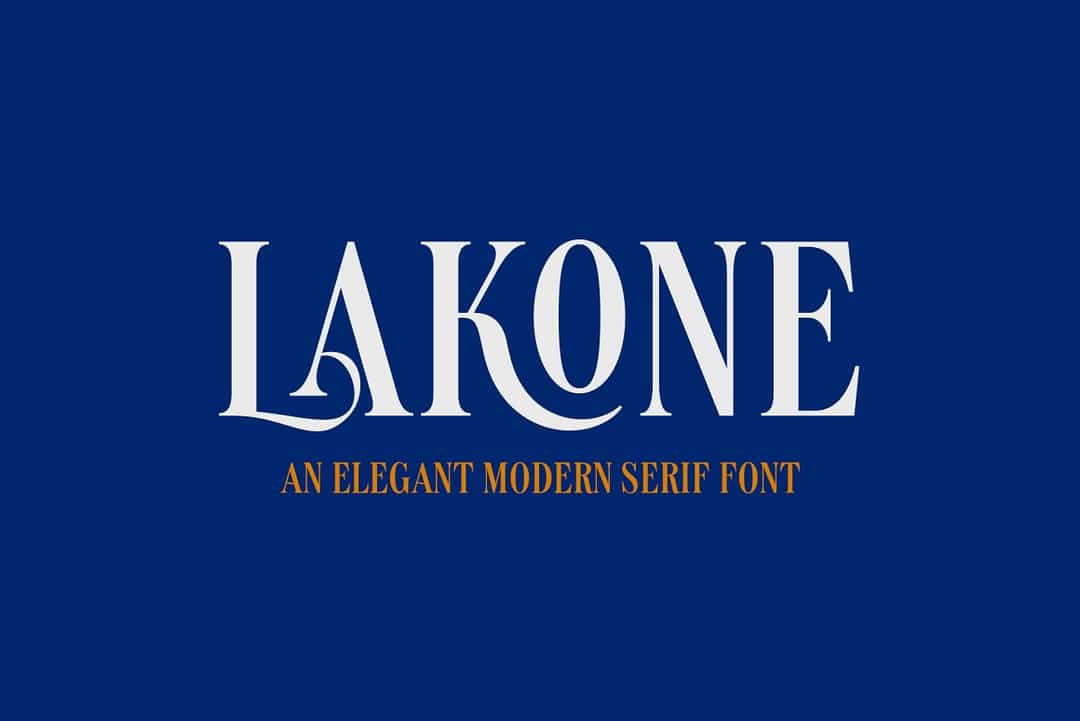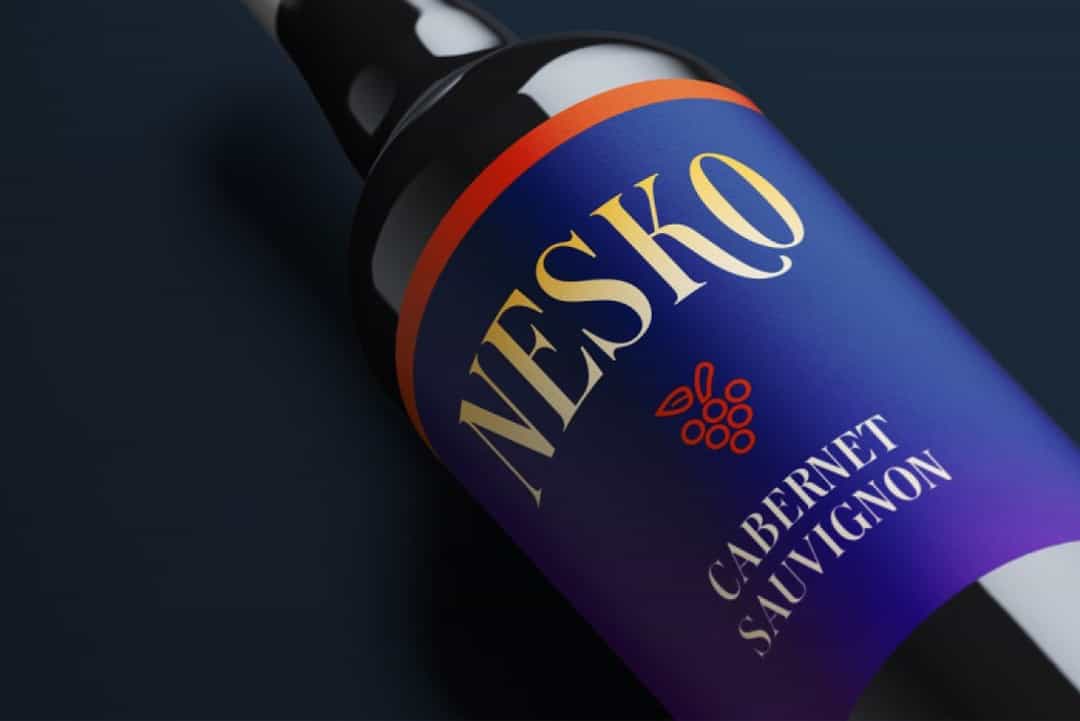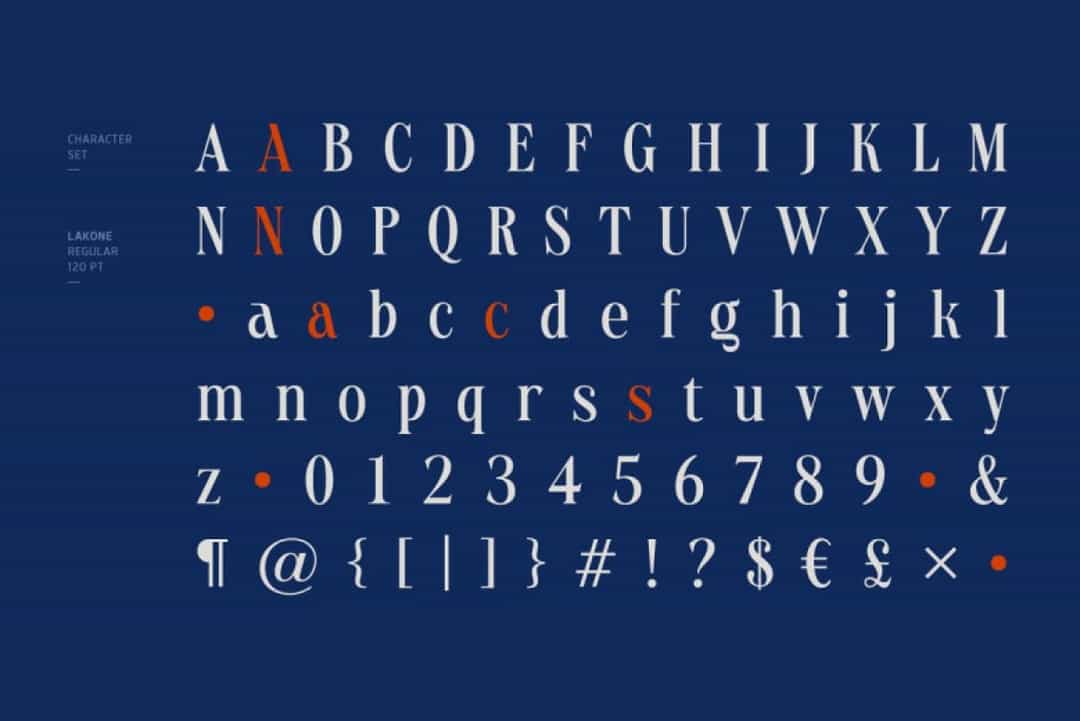
Lakone, our modern serif typeface, adds a chic aesthetic to any design project. Known for its thin silhouette and clean lines, Lakone makes an impressionful statement in headlines and titles that catch attention. But Lakone goes beyond beauty – with an impressive assortment of Opentype features like dozens of swashes, ligatures, and alternative fonts, Lakone gives you even greater room to unleash creativity while developing font-writing abilities.